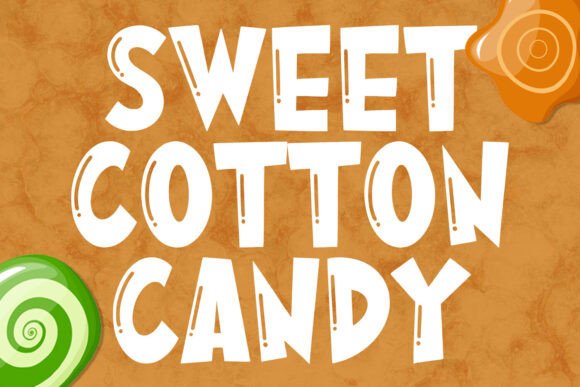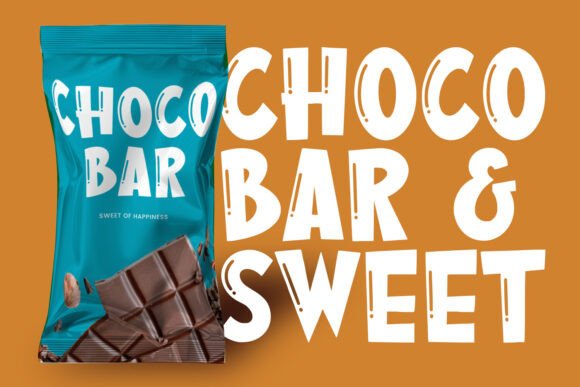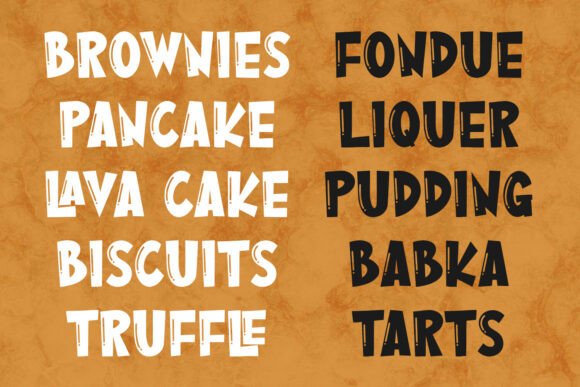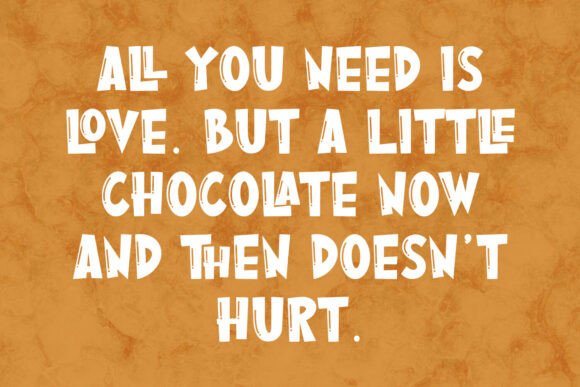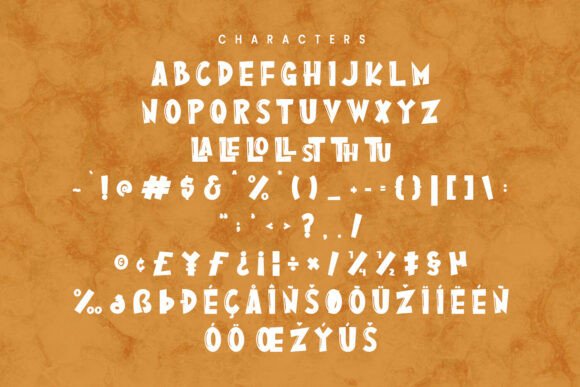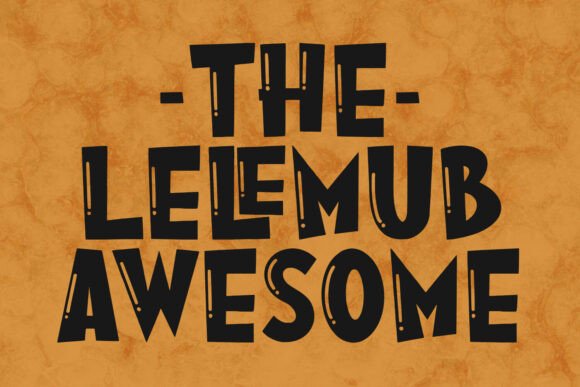
Discover the Playful Charm of Castlo Segur Font
I’ll never forget the time I was working on a children’s book design project, and I just couldn’t find the right font to match the playful tone of the story. The client wanted something that would appeal to kids and make the book stand out on store shelves. That’s when I stumbled upon Castlo Segur, a bold and bouncy sans serif display font that instantly brought the project to life. In this article, I’ll share my experience with Castlo Segur, its unique features, and how to make the most of this fun font in your designs.
A First Impression: What Makes Castlo Segur Special
Castlo Segur is more than just a font – it’s a design statement. With its exaggerated curves and playful angles, this typeface radiates fun and creativity. The whimsical strokes and comic-like character shapes make it perfect for children’s designs, candy-themed branding, posters, and packaging. Its hand-crafted look adds a personalized touch, ensuring your message stands out with cheerful energy and bold confidence.
An Honest Review: The Good and the Quirky
Here’s what I love about Castlo Segur:
- ✨ Unique and playful design: Castlo Segur’s bold and bouncy style is perfect for making a statement in any design project.
- ✅ Highly legible: Despite its playful nature, Castlo Segur remains easy to read, even in larger blocks of text.
- 🎉 Versatile: This font can be used for a wide range of projects, from children’s books to posters and packaging.
And here are a few quirks to keep in mind:
- 🤔 Limited use in formal contexts: Castlo Segur’s playful nature makes it less suitable for formal or professional designs, such as business reports or academic papers.
- ⚠️ May not work well in small sizes: Due to its bold and bouncy design, Castlo Segur may not be the best choice for small font sizes, as it can become overwhelming.
One of the best things about Castlo Segur is its OpenType features and glyphs. These allow you to customize your text and add more personality to your design. Some common features include:
| Feature | Description |
| Stylistic Alternates | Swap out characters for alternative designs. |
| Glyphs | Access special characters, such as ligatures and ornaments. |
The Story Behind Castlo Segur
Castlo Segur was designed with one goal in mind: to create a font that would bring fun and creativity to any design project. Inspired by the playful world of children’s books and candy-themed branding, Castlo Segur’s designer aimed to craft a typeface that would stand out and make a statement.
- Q: What type of projects is Castlo Segur best suited for?
- A: Castlo Segur is perfect for children’s designs, candy-themed branding, posters, and packaging.
- Q: Is Castlo Segur easy to read?
- A: Despite its playful nature, Castlo Segur remains highly legible, even in larger blocks of text.